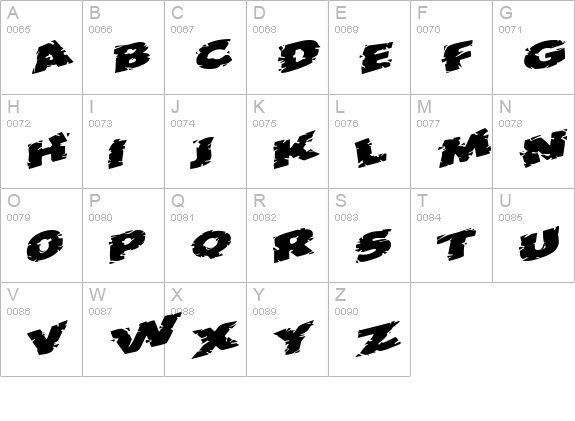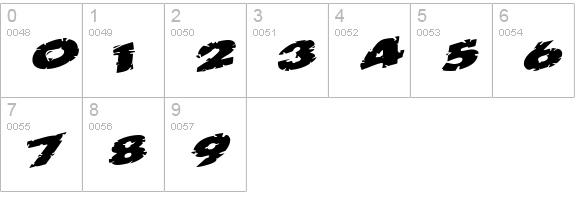
OutbackOutaControlSCapsSSK Bold Font Details
OutbackOutaControlSCapsSSK Bold is a strong, high-contrast variant in the OutbackOutaControlSCapsSSK typeface family \xE2\x80\x94 well suited to headlines, attention-grabbing titles, and strong calls-to-action.
OutbackOutaControlSCapsSSK Bold font is a striking and bold typeface that exudes a sense of energy and dynamism. Its unique design features sharp, angular lines that give it a modern and edgy look. Perfect for making a statement or grabbing attention, this font is sure to stand out in any design project. What's even better is that OutbackOutaControlSCapsSSK Bold font is freely available to download at FontsMarket.com. Whether you're working on a branding project, poster design, or any other creative endeavor, this font will add a touch of excitement and personality to your work. Don't miss out on the opportunity to enhance your designs with this eye-catching typeface. Download it now and let your creativity run wild!